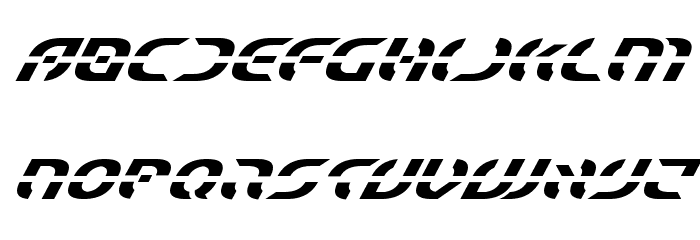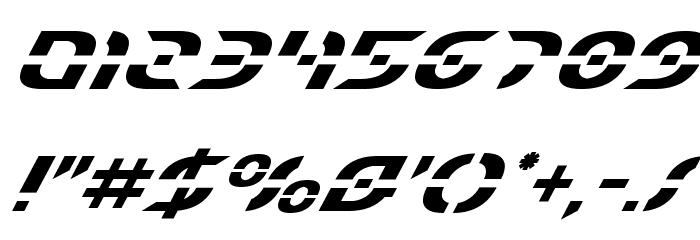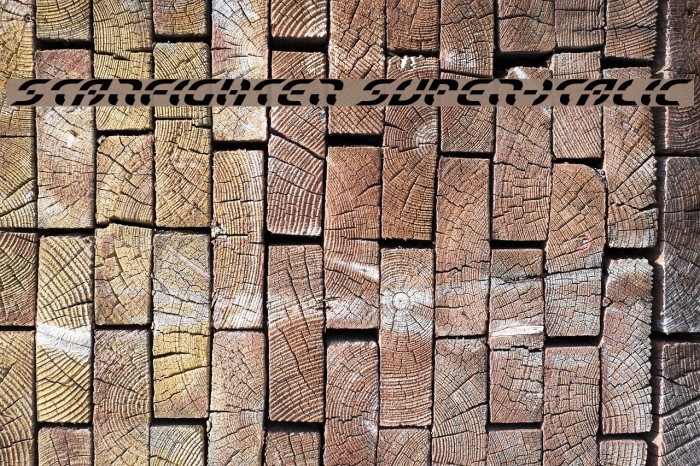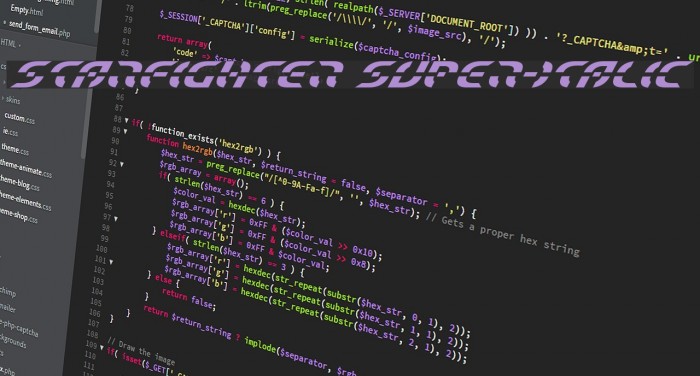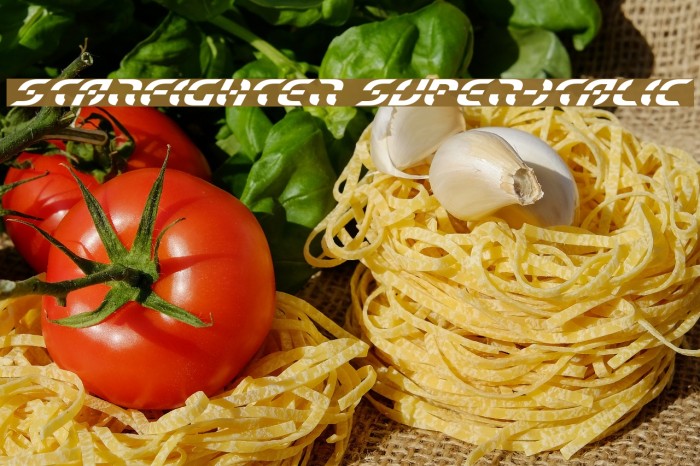
Starfighter Super-Italic Font
This font features a futuristic and dynamic design, characterized by its sharp angles and sleek, italicized form. The letters are bold and have a distinct geometric style, with cut-out sections that create a sense of movement and speed. The uppercase and lowercase letters maintain a consistent style, enhancing the font's cohesive appearance. The numbers and special characters follow the same design principles, ensuring uniformity across all characters. This font is ideal for projects that require a modern and edgy look, such as technology-related branding or sci-fi themed designs.
A futuristic, italicized font with bold, geometric shapes and dynamic cut-out sections.
- Proposed Projects: Ideal for technology branding, sci-fi themes, video game titles, and futuristic posters.